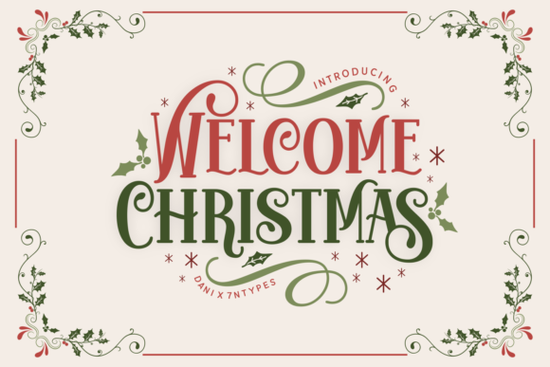
Getting ready for the holiday season often means rushing to finalize designs for cards, shirts, and social media posts. If you are looking for a typeface that captures the festive spirit without being too difficult to read, the Welcome Christmas Font is a strong option to consider. This joyful and festive display font matches well with various holiday creations, helping your designs come alive with seasonal cheer. It works particularly well for projects that need a bold statement while maintaining a friendly vibe.
What kind of projects work best with this typeface?
Display fonts like this are designed to grab attention, making them ideal for headlines and short phrases. You might use them on Christmas greeting cards where the main message needs to stand out against a busy background. Print-on-demand sellers often look for this style for t-shirts and mugs because the letters are thick enough to print clearly on different materials. Small businesses can also use it for sale banners or shop decorations during December.
Since it is a display font, it is not meant for long paragraphs of text. Instead, focus on using it for titles like "Happy Holidays" or "Winter Sale." If you need something for body text, pair it with a simpler sans-serif font. This contrast ensures your message is readable while keeping the festive look on the important parts of your design.
How does it compare to other seasonal typefaces?
There are many options available when you browse through designer display fonts, but each has a different mood. For example, if you want something that feels more like a summer vacation even in winter, you might look at the Laguna Tropic font. However, for traditional holiday warmth, the Welcome Christmas style holds its own. It avoids being too messy, which can happen with overly decorative scripts.
Some designers prefer a vintage look for their holiday projects. In that case, exploring retro script styles could give you a nostalgic feel from the 1950s or 60s. The Welcome Christmas font is more modern and clean, which suits contemporary branding better. If you want something with a bit of an edge or a storybook feel, you might consider the Grinched 20 font, which offers a different character entirely.
How do you pair this with other holiday elements?
Typography does not exist in a vacuum. To make your designs pop, think about the graphics surrounding the text. Snowflakes, holly leaves, and simple geometric shapes work well with clean display fonts. If you want more visual weight, you might explore chunky texture options to see how added grit changes the feel. The Welcome Christmas font is smooth, so adding textured background elements can create a nice balance without making the text hard to read.
Color choice is also critical. Red and green are obvious choices, but do not be afraid to use gold, silver, or deep navy blue. High contrast between the text and the background ensures legibility. If you are designing for social media, test your images on a mobile screen to make sure the letters are clear at a smaller size.
Is this font easy to use for beginners?
For those new to design, start by typing out your message and adjusting the tracking (the space between letters). Display fonts sometimes need a little extra breathing room to look their best. Kerning, or adjusting the space between specific pairs of letters, might be needed for logos, but for general holiday crafts, the default spacing is often sufficient.
Where can you find more inspiration?
If you are building a library of assets for the holidays, it helps to look at various categories. Mixing scripts with display fonts can create dynamic layouts. Always check the license terms before using any font for commercial projects. Most creators allow use on physical end products for sale, but digital resale of the font file itself is usually prohibited.
Experimenting with different styles helps you find what fits your brand best. Whether you stick with the clean lines of Welcome Christmas or try something more textured, consistency is key. Keep your holiday branding consistent across your website, packaging, and social media to build recognition with your customers.
Quick Design Checklist
- Check Legibility: Ensure the text is readable from a distance, especially on merchandise.
- Test Contrasts: Try different background colors to make the letters stand out.
- Pair Wisely: Use a simple font for body text to balance the decorative display font.